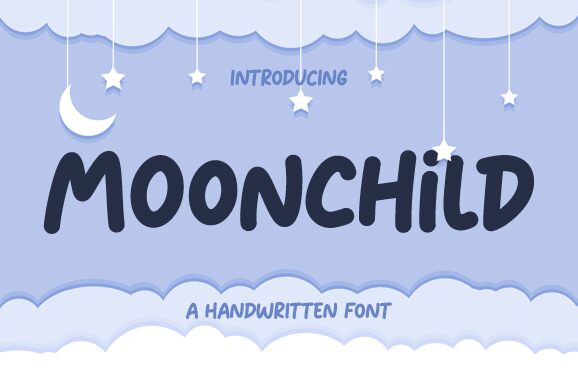
Moonchild
Moonchild, a whimsical creation by Graphix Line Studio, stands out with its playful curves and semi-bold presence that evoke a sense of nostalgia and joy. This display font carries the lightheartedness of a cartoon style, making it an excellent choice for projects that aim to convey fun, creativity, and approachability.
The rounded contours and buoyant structure of Moonchild add a charming personality to any visual communication. Its aesthetic is both inviting and memorable, suitable for children's books, party invitations, or branding that desires to strike a balance between playfulness and readability.
With its distinctively friendly vibe, Moonchild promises to inject warmth into designs while maintaining legibility at various sizes. Whether it's used in digital graphics or printed materials, this font is versatile enough to bring your creative vision to life with both style and substance.